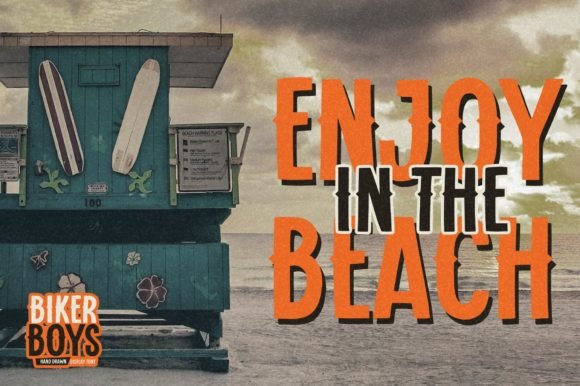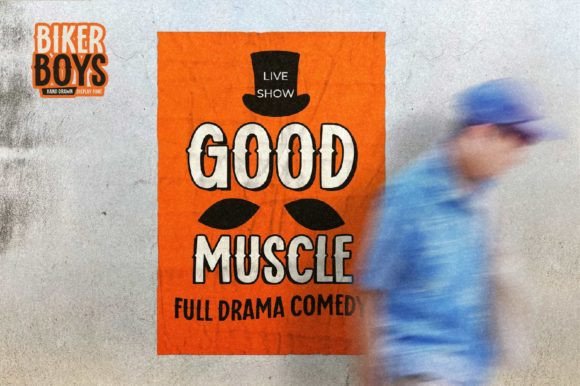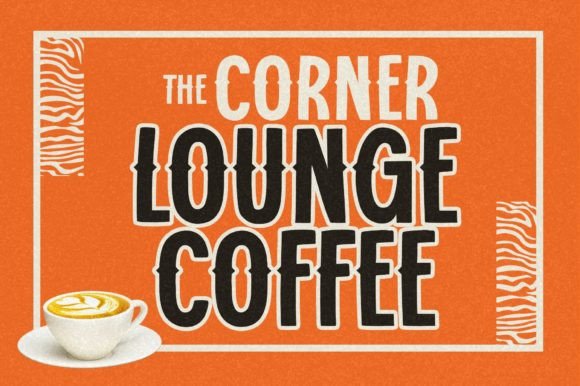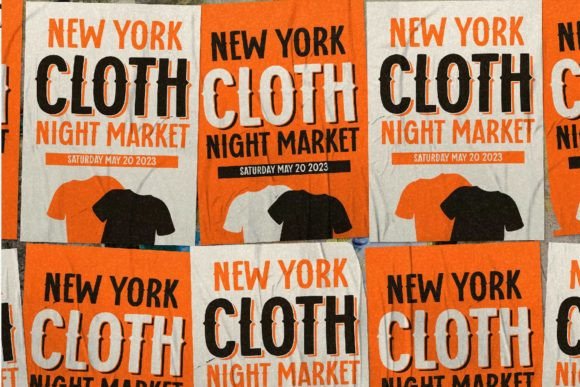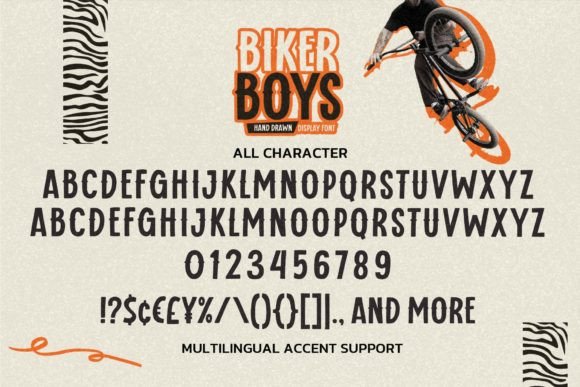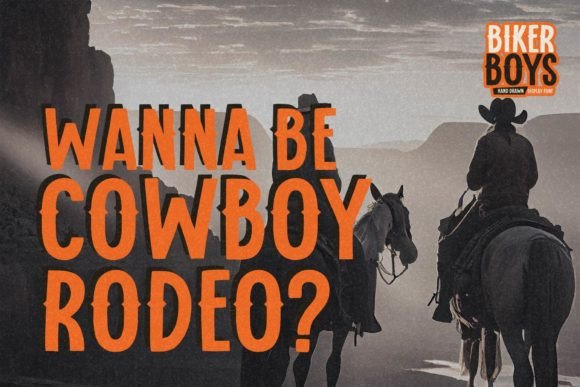
The Perfect Ride for Your Design: Introducing Biker Boys Font
Imagine you’re cruising down a winding road on a sunny day, the wind in your hair, and the roar of the engine beneath you. You’re not just riding a bike, you’re creating a moment, a feeling that you want to capture and share with the world. That’s exactly what the Biker Boys Font is all about – capturing the essence of a free-spirited, carefree moment and bringing it to life in your designs.
This hand-drawn display font is a masterclass in texture and natural style, with a clear and dramatic movement that’s sure to grab attention. Whether you’re designing logos, printed quotes, or invitations, the Biker Boys Font is the perfect companion to help you create something truly unique and memorable. For designers, it’s a valuable asset that adds a touch of authenticity and relaxed charm to any project, making it a must-have in your creative toolkit.
Biker Boys Font Key Features
- Font Family: Biker Boys is a unique, hand-drawn font designed for those who love the biker culture.
- Font Size: Biker Boys is available in 3 font sizes: Regular (400), Bold (700), and Outline (900).
- Unique Characteristics: Features distressed and worn textures, giving it a rugged, vintage look that’s perfect for biker-themed designs, tattoos, and other edgy projects.
Biker Boys Font Review
First off, I want to say that the Biker Boys font has some great qualities to it. ✨ The bold, edgy design makes it perfect for creating a rebellious or tough vibe in your designs. The font is highly customizable, with many options for adjusting the weight, style, and spacing, which is a huge plus for designers.
Another thing that works well in the Biker Boys font is its wide range of languages supported. This makes it a great option for designers working on projects that require a specific language, and it’s also a great choice for international brands.
- Edgy, bold design perfect for creating a tough or rebellious vibe
- Highly customizable with many options for adjusting weight, style, and spacing
- Supports a wide range of languages
- May not be suitable for projects requiring a more elegant or sophisticated design
- Some users may find the font to be too bold or overwhelming in certain contexts
- Not as versatile as some other fonts in terms of pairing with different styles
Overall, the Biker Boys font is a great option for designers looking to create a bold, edgy design. While it may not be suitable for every project, it’s a great choice for those looking to create a rebellious or tough vibe.
Getting the Most Out of the Biker Boys Font
For a bold, edgy look, use the Biker Boys Font in combination with distressed textures or grunge backgrounds.
To create a cohesive brand identity, use the Biker Boys Font consistently across all marketing materials.
Experiment with different font sizes and colors to create visual interest and emphasis.
The Biker Boys Font is perfect for:
Rock ‘n’ roll-themed designs and merchandise.
Motivational quotes and posters.
Edgy, urban-inspired branding and marketing materials.